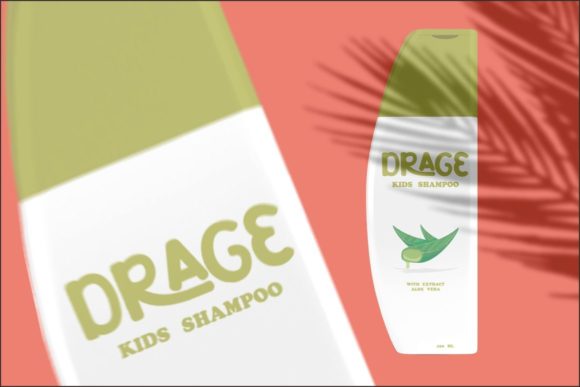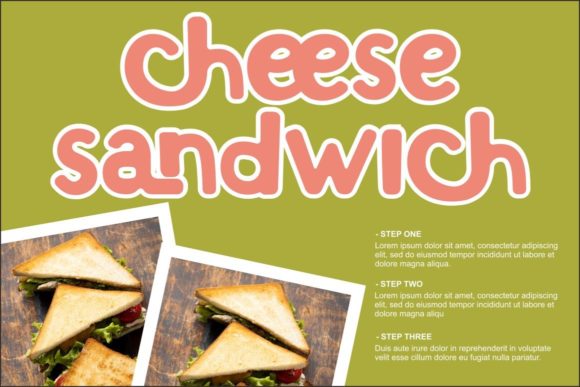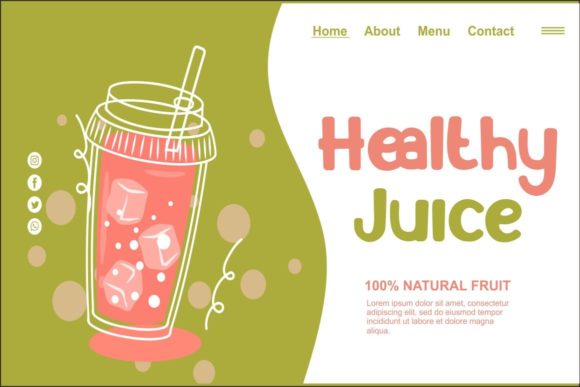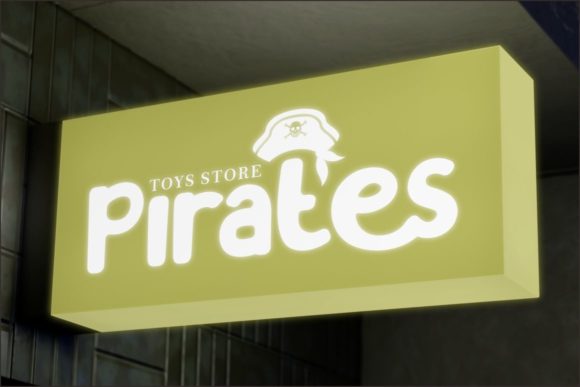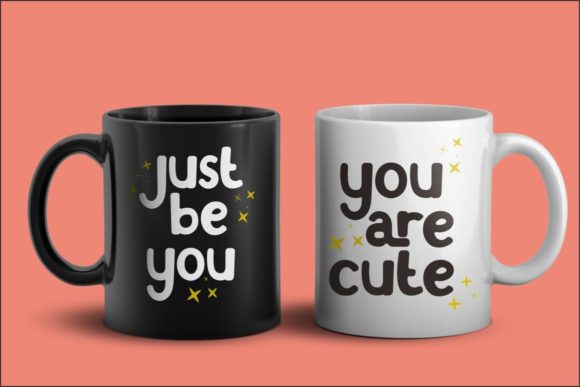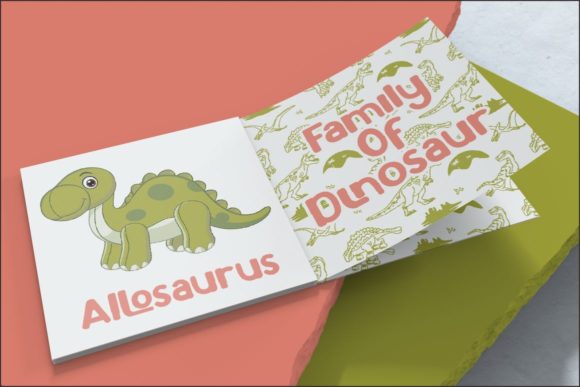
Introduction to Lychee Farmland Font
Remember the moment when you’re working on a creative project and you’re stuck, searching for that perfect design element to elevate your concept? It’s like trying to find a missing puzzle piece. For designers, discovering a high-quality font can be a game-changer. That’s why we’re excited to introduce the Lychee Farmland Font, a cool and playful display font that’s sure to bring a smile to your face.
With its PUA encoded design, accessing all glyphs and swashes is a breeze, making it easy to add to your favorite creations and watch your design come to life. Whether you’re working on a project with a transparent background or need a design resource that’s sure to impress, the Lychee Farmland Font is a valuable addition to any designer’s toolkit.
Key Features of Lychee Farmland Font
- High-quality, hand-drawn design ideal for creative projects
- Features a transparent background, making it easy to use in various design settings
- Perfect as a design resource for artists, designers, and creatives
- Includes a large character set, covering a wide range of languages and symbols
- Ideal for use in digital design projects, including web design, graphic design, and more
Honest Review: Lychee Farmland Font
I recently stumbled upon the Lychee Farmland Font and I must say, I’m impressed! This high-quality font is perfect for any creative project that needs a unique and quirky touch.
- ✨ Unique and playful design: The Lychee Farmland Font has a fun and whimsical feel to it, making it perfect for projects that require a creative touch.
- ✨ Transparent background: This font has a transparent background, which allows for easy layering and customization.
- ⚠️ Limited character set: The Lychee Farmland Font has a limited character set, which may not be suitable for projects that require a wide range of characters.
- ⚠️ Not suitable for body text: Due to its playful design, this font may not be suitable for body text, and is best used for headlines or decorative elements.
Overall, I think the Lychee Farmland Font is a great addition to any designer’s toolkit. While it may have some limitations, its unique design and transparent background make it a valuable resource for any creative project.
Tips for Getting the Most Out of Lychee Farmland Font
Use Lychee Farmland Font with a transparent background to create a modern and sleek design. Experiment with different font sizes and colors to add visual interest to your design. You can also use Lychee Farmland Font in combination with other design elements, such as images and graphics, to create a unique and eye-catching design.